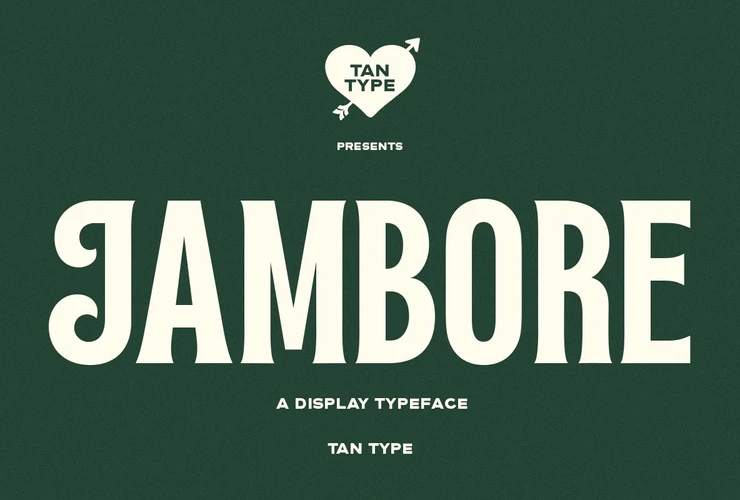
About TAN Jambore
Jambore is a bold display serif. Conventional with a flair. It has a right dose of retro vibes and perfect for headlines, branding purposes, book covers, ads, etc. Multilingual Support & Free Updates